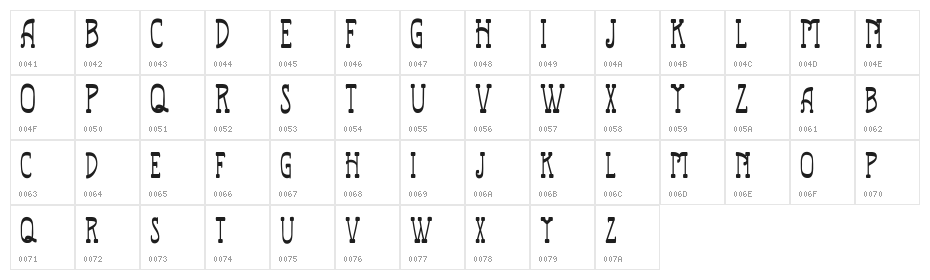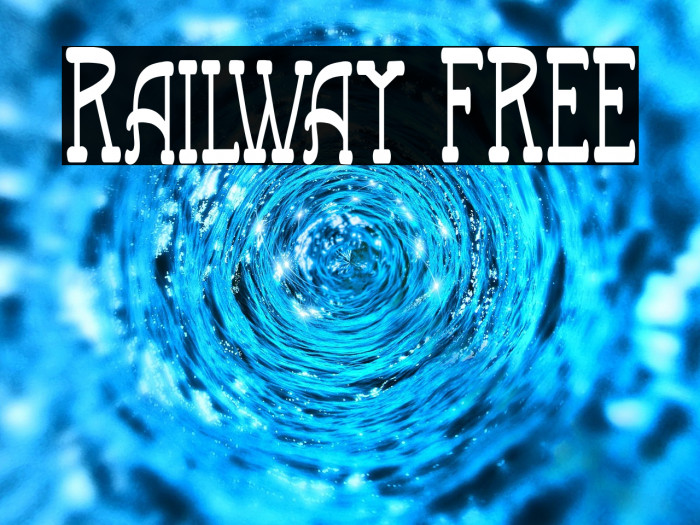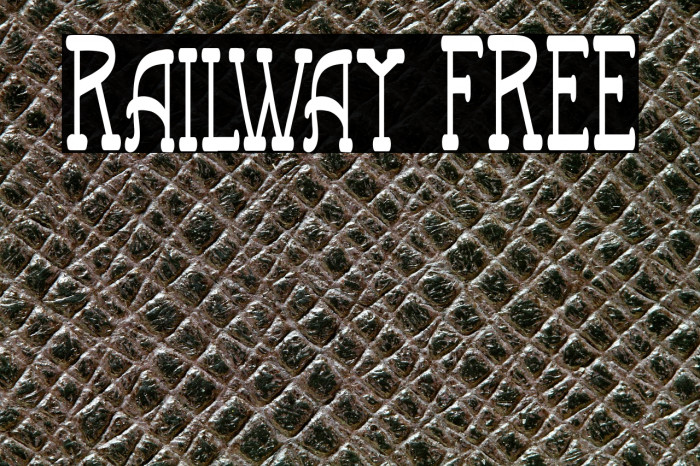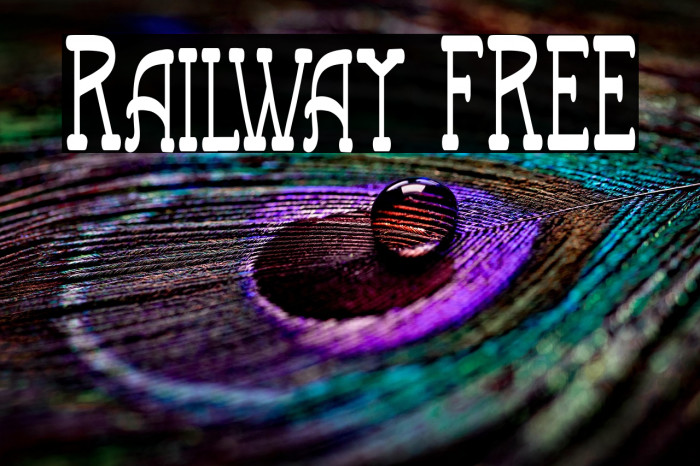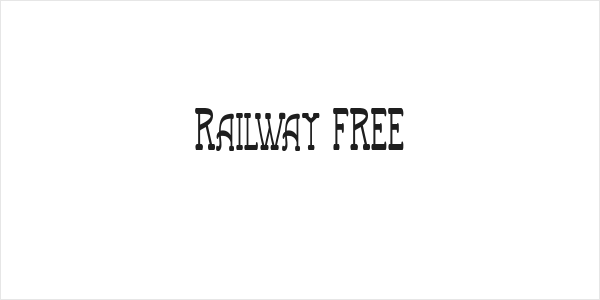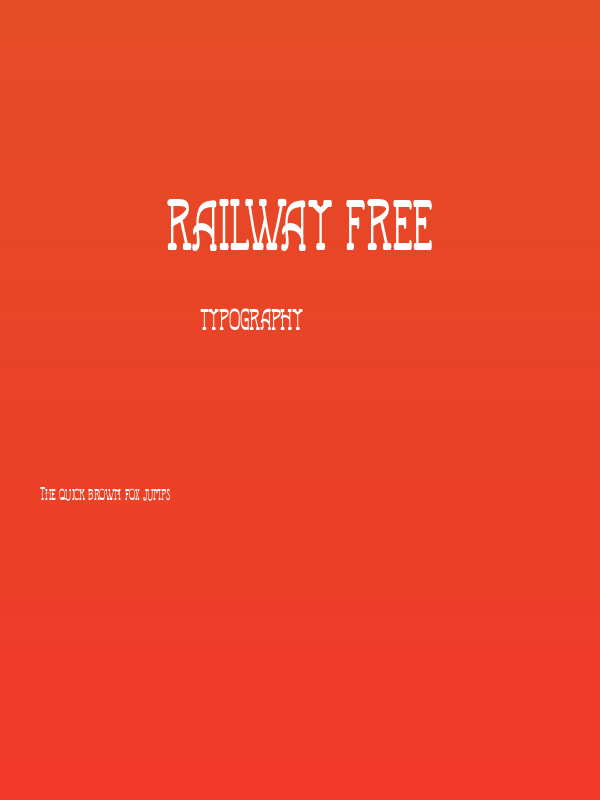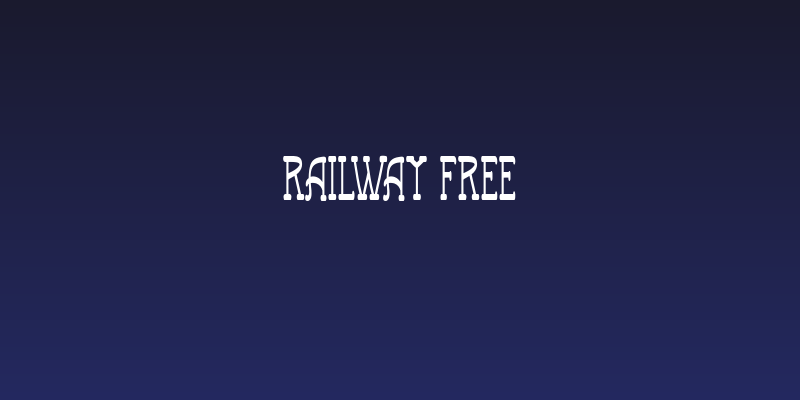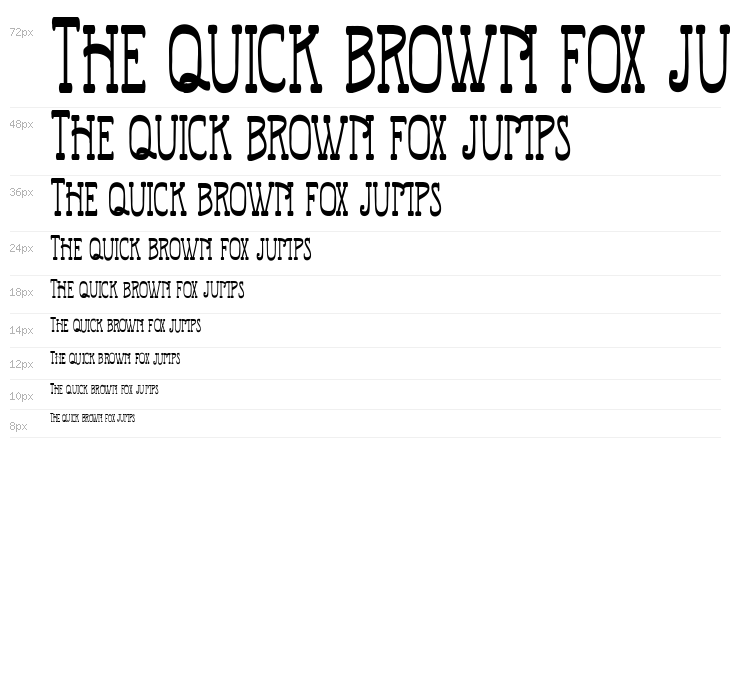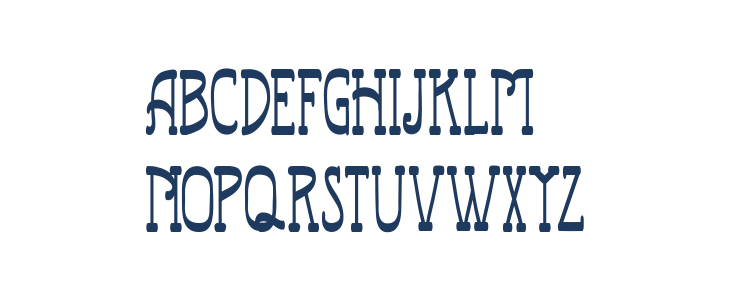
Railway FREE Font
Railway FREE Description
This font features a bold and decorative style with a unique, playful character. The letters are designed with rounded terminals and a slight curvature that adds a whimsical touch. The strokes are consistent in weight, providing a uniform appearance across all characters. The uppercase letters are particularly striking, with a strong presence that makes them ideal for attention-grabbing headlines. The font's design is reminiscent of vintage railway signage, evoking a sense of nostalgia and charm. Its distinct style makes it suitable for creative projects that require a touch of personality and flair.
| Proposed Projects | Ideal for posters, signage, branding, and any project requiring a vintage or playful aesthetic. |